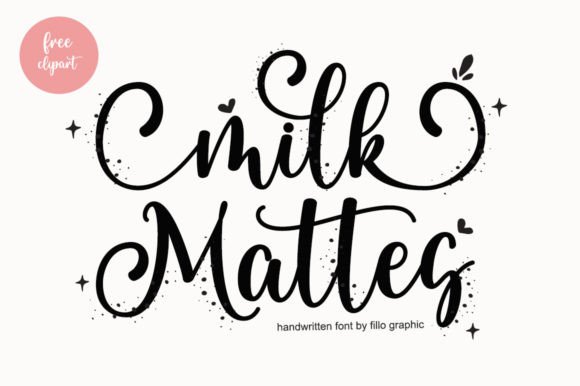
Introducing Milk Mattes, the delectable script font that will tantalize your senses and captivate your audience. This enchanting creation by Fillo Graphic is a symphony of elegance and charm, a perfect harmony of flowing lines and graceful curves. Let Milk Mattes dance across your designs, adding a touch of luxury and sophistication that will leave them breathless.
With its romantic and sweet disposition, Milk Mattes is the perfect font for those seeking to express their love and affection. Its characters pirouette along the baseline, creating an enchanting visual rhythm that draws the eye and captivates the heart. Whether you're crafting wedding invitations, love letters, or heartfelt messages, Milk Mattes will infuse your words with an undeniable allure.
Beyond its romantic charm, Milk Mattes is also a versatile performer, adapting effortlessly to a wide range of design projects. Its playful nature lends itself beautifully to whimsical branding, packaging, and social media graphics. The sky's the limit with Milk Mattes, as it seamlessly elevates any project with its sophisticated touch.
But Milk Mattes is more than just a pretty face. This PUA-encoded font grants you access to a treasure trove of glyphs and ligatures, empowering you to unleash your creativity and add intricate details to your designs. Explore the endless possibilities, combining characters and symbols to create captivating compositions that will leave a lasting impression.
Embrace the allure of Milk Mattes and watch your designs blossom into masterpieces. Its romantic charm and versatile nature make it the perfect choice for those seeking to add a touch of elegance and sophistication to their creative endeavors. Let Milk Mattes be your muse, guiding you towards design excellence.